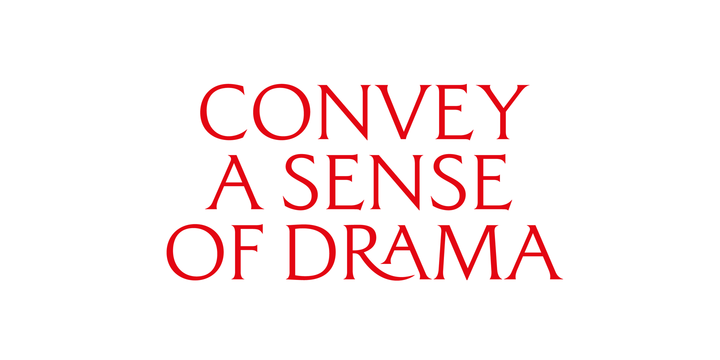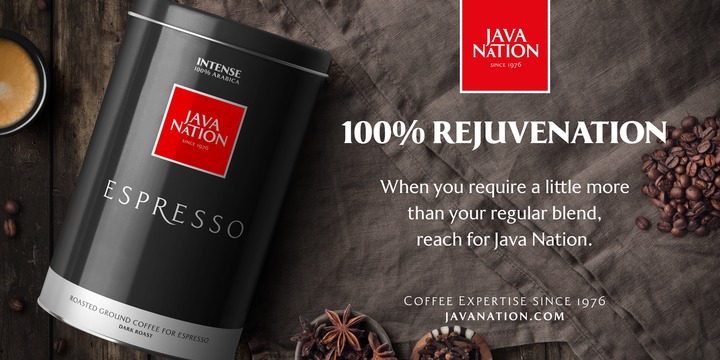
Majesty is a refined and elegant incised serif typeface designed to convey a sense of drama with any implementation of it.
However, Majestys austerity is softened by the inherent familiarity of its letterforms.
Having being inspired by classic engraved type, it has the echoes of familiar stone inscriptions over the centuries embodied within this 7-font type family.
More Majesty has a branding and titling focus, this is most apparent in the all cap letter combinations that are incorporated.
Just activate Discretionary Ligatures and watch your type shape-shift on the fly to create interesting and appealing typography.
There are a select number of Swash/Stylistic Alternates included that can also help you embellish your designs.
Other features include Proportional, Tabular, and Old Style Figures, as well as Small Caps and Petite Caps, with the latter harmonising perfectly with the lowercase glyphs so that you can create unicase-style typography.